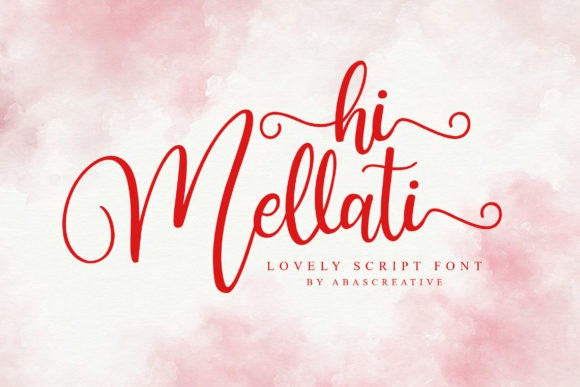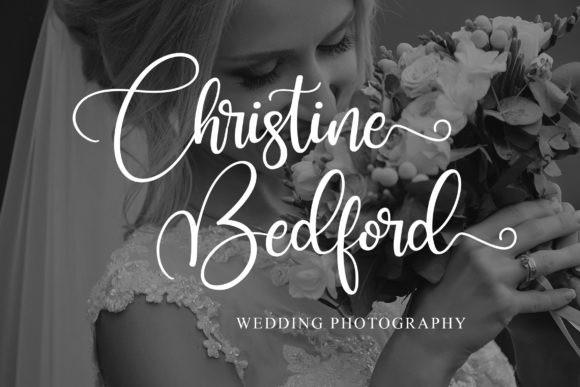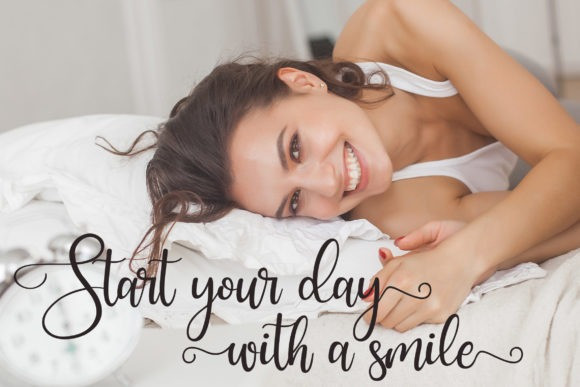
Hi Mellati Calligraphy Font
Hi Mellati is a beautiful and lovely script that is suitable for branding, wedding invitations, and other romantic projects.